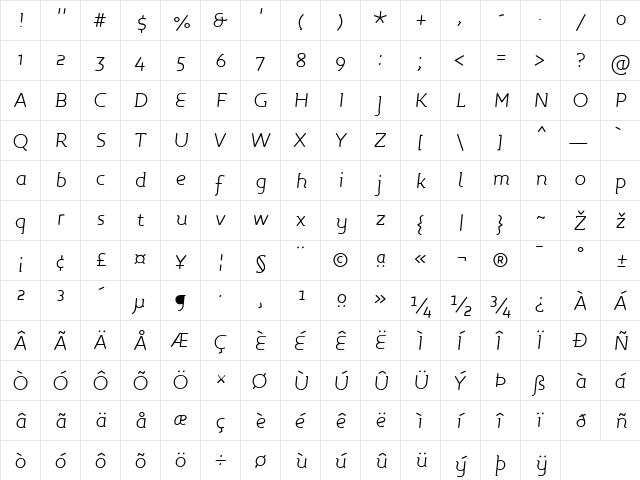
Roice-LightItalic Regular Font Preview
| Foundry | Alex Scholing, published by FontShop International for the FontFont library |
Design Context for Roice-LightItalic Typeface
Roice-LightItalic is a composed and adaptable typeface that performs quietly and consistently across a wide range of design contexts. Its italic angle brings a sense of urgency and motion to the letterforms. The delicate stroke weight brings airiness and refinement to layouts.
Pro Tip: Try Roice-LightItalic for annotation and caption copy alongside an upright companion — the contrast in angle creates a dynamic but ordered typographic system.